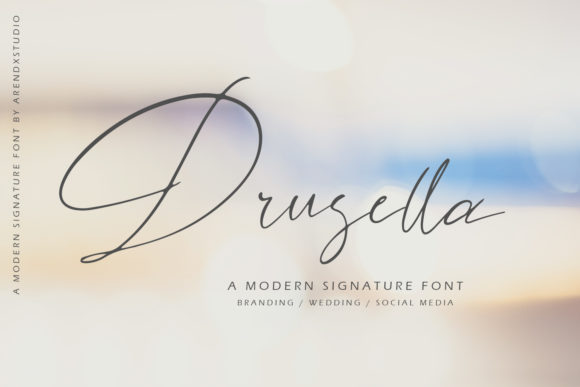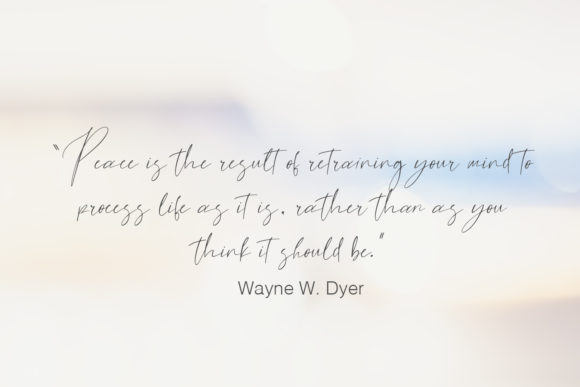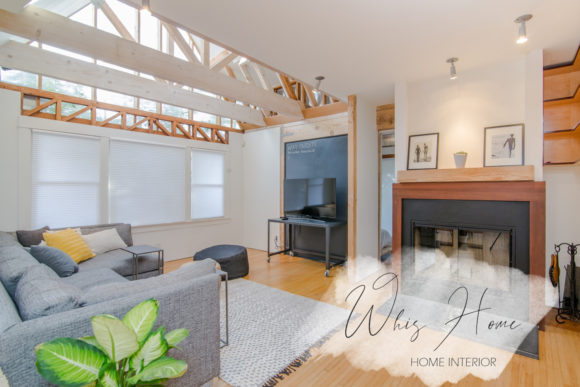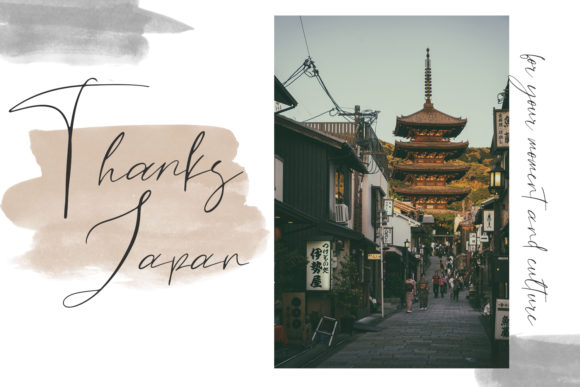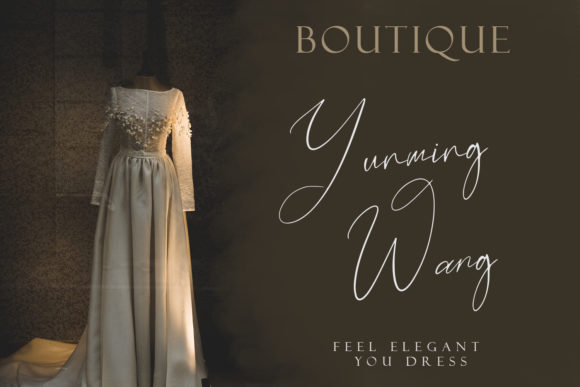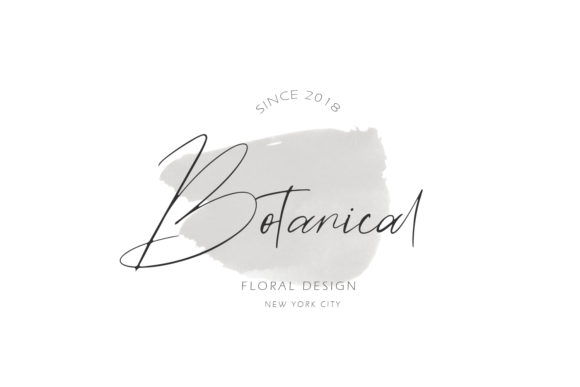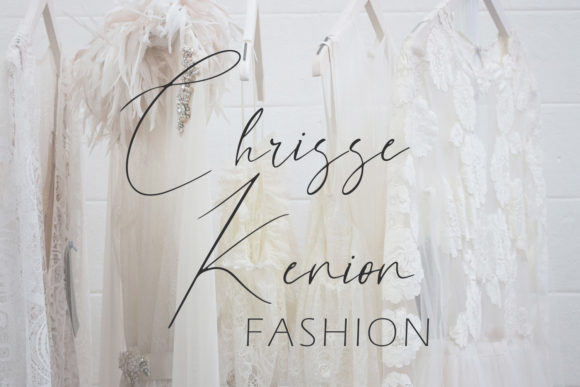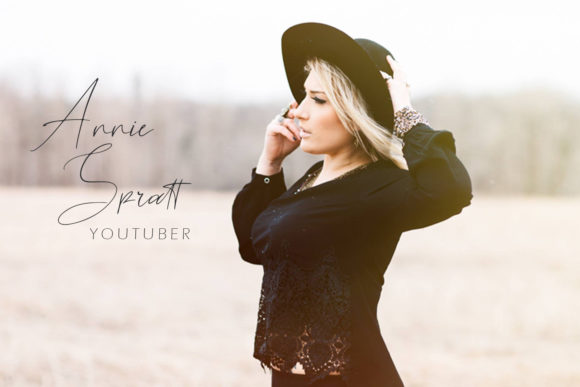
HomeScript FontsDrusella Font Script Fonts Drusella Font FacebookXPinterestWhatsApp Drusella Font Poster 2 Drusella Font Poster 3 Drusella Font Poster 4 Drusella Font Poster 5 Drusella Font Poster 6 Drusella Font Poster 7 Drusella Font Poster 8 About Drusella Font Drusella is an elegant script font with a unique style. It will add a romantic touch to any crafting project! DOWNLOAD ON CREATIVE FABRICAThis font is sold and delivered by Creative Fabrica. Font Canyon may earn a commission if you buy through this link. People also explored Hailey Font Children Font Blooming Font Kabita Font Rattman Font The Macksen Font Kiraly Font Milford Script Font Mandilla Font 295 0 TagsDrusella Font Previous articleBaekrajan FontNext articleLittle Font LEAVE A REPLY Cancel reply Comment: Please enter your comment! Name:* Please enter your name here Email:* You have entered an incorrect email address! Please enter your email address here Website: Save my name, email, and website in this browser for the next time I comment. Personal Use Free Lollipop Melody Personal Use Free Read more about this font Jilliant Personal Use Free Read more about this font Remember Personal Use Free Read more about this font Bridgetown Font Personal Use Free Read more about this font BLOG Elegant Wedding Invitation Fonts – Handwritten & Script Fonts Elegant Wedding Invitation Fonts Your wedding day is one of the most important moments of your life, and every detail matters—including your invitation design. Our... Best Fonts for YouTube Videos: Make Your Thumbnails Stand Out Exploring Font Trends How to Install and Use Fonts on Windows, macOS, and Web Projects